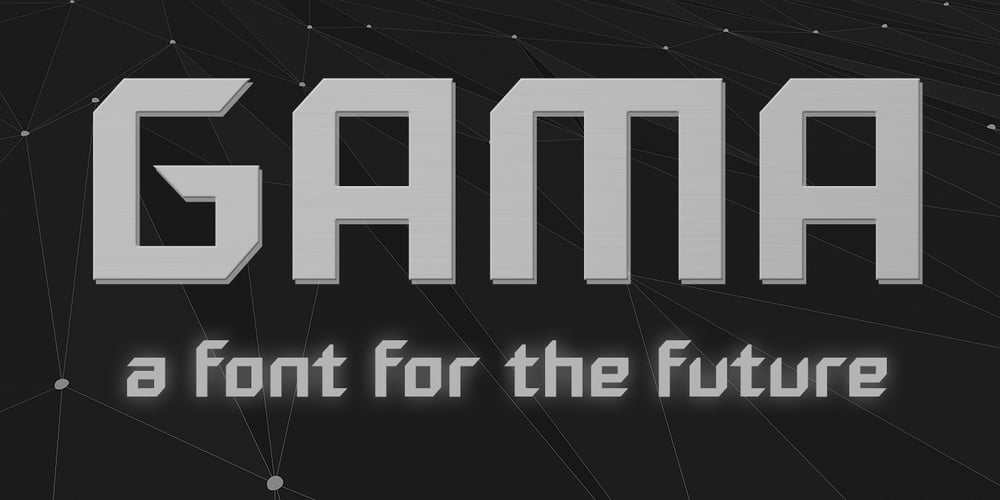
Gama
Gama font
Gama Font Family was designed by Alec Julien and published by Haiku Monkey. Gama contains 6 styles and family package options. Gama is a display font meant to be used at large sizes, for any time you need a typeface that grabs attention and speaks loudly. You can use the Regular version as is, for a pure, futuristic statement. Or you can use the Highlight version for some extra flare. If you really want to get wild, layer the separate Highlights version on top of the Regular, so you can manipulate the highlighted parts apart from the letterforms. Each version comes in italics as well.